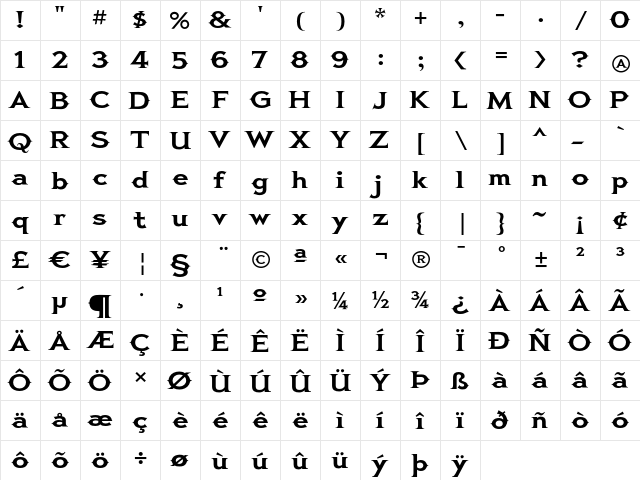
Diego Bold
| Foundry | Dilworth Typographics Inc. |
| Designer | Silas Dilworth |
Design Context for Diego Typeface
Diego is a composed and adaptable typeface that performs quietly and consistently across a wide range of design contexts. Its bold stroke weight gives it real presence on the page.